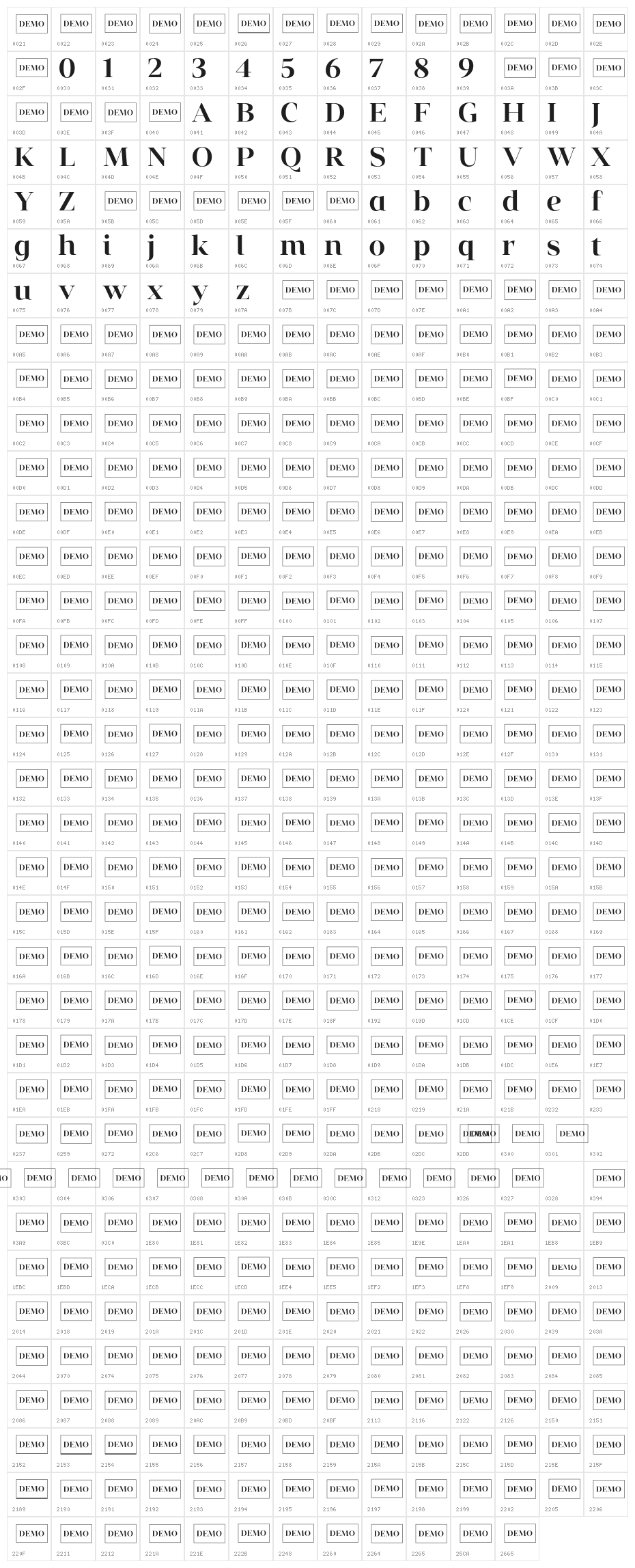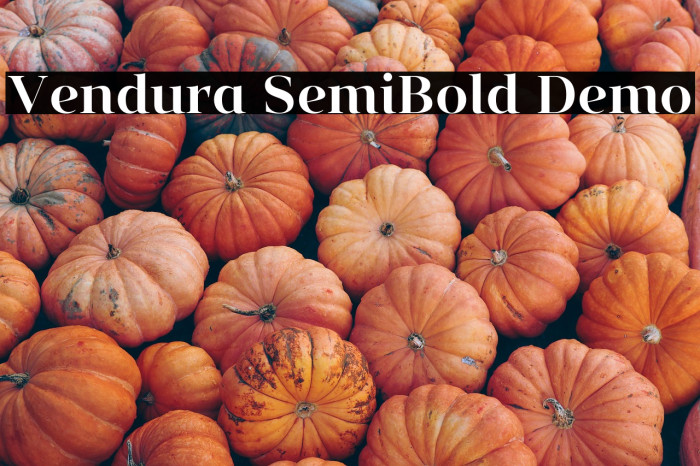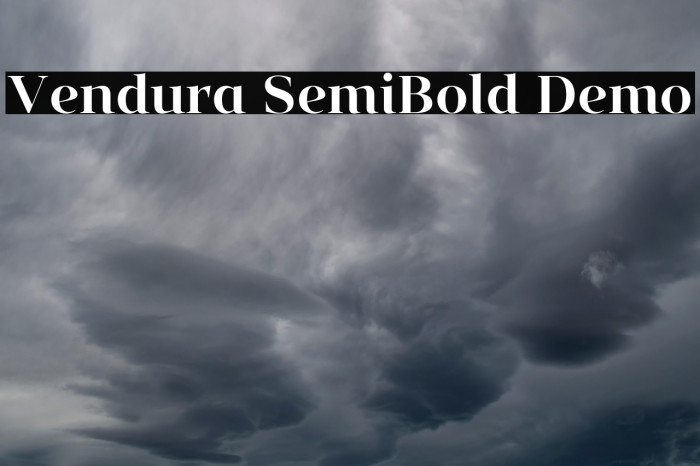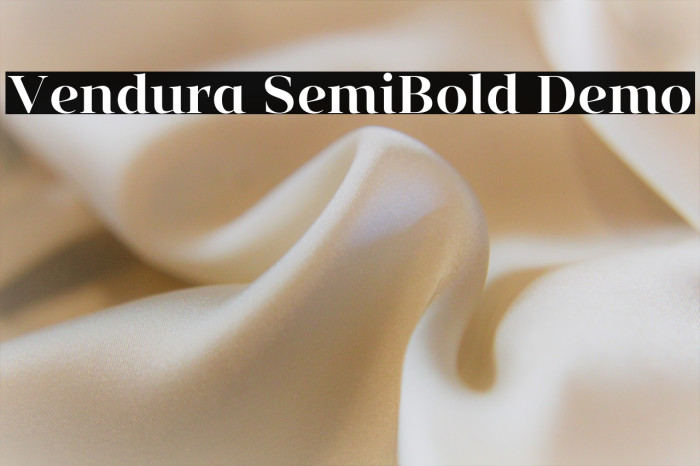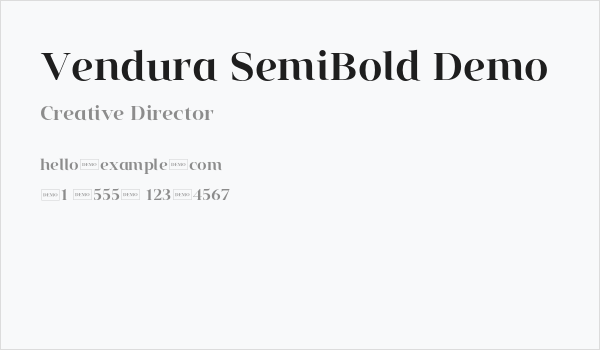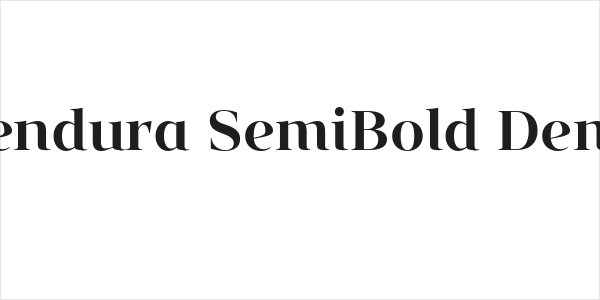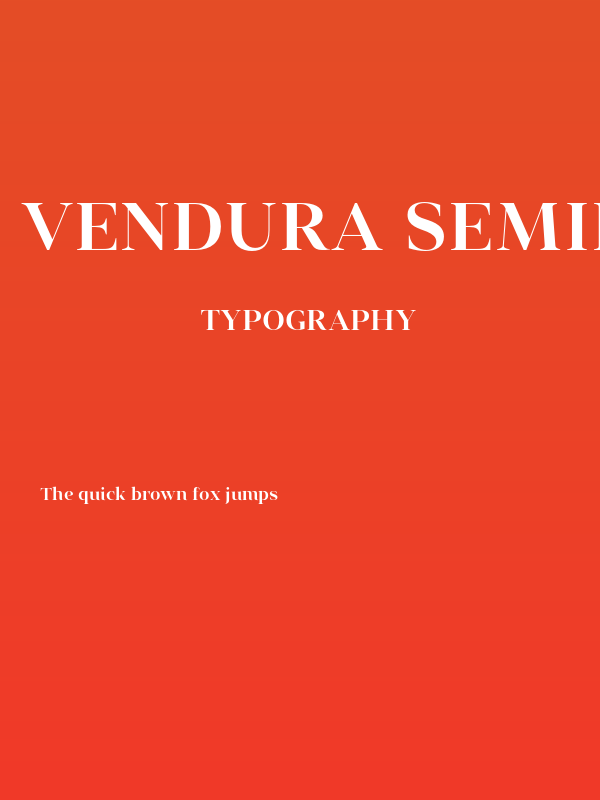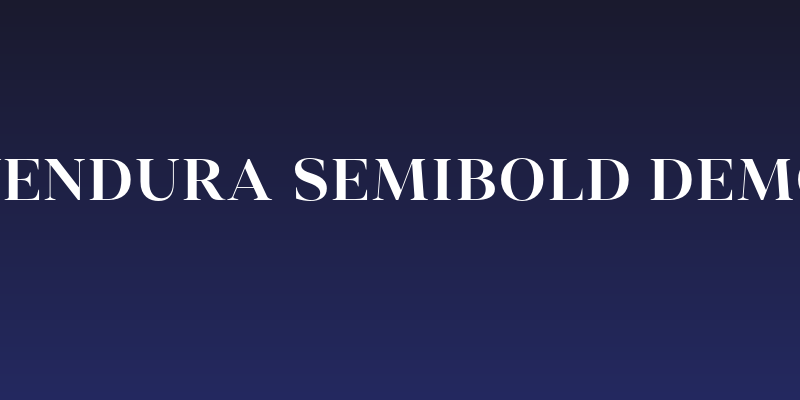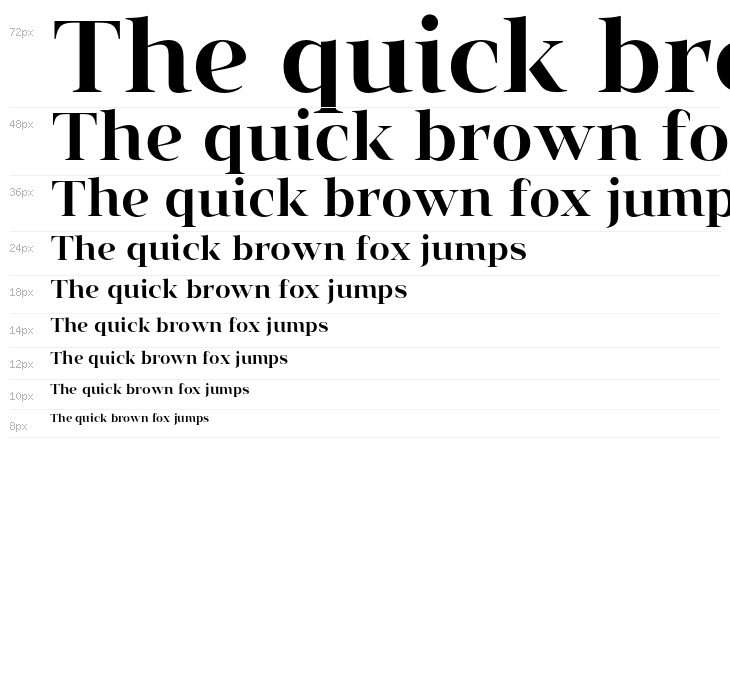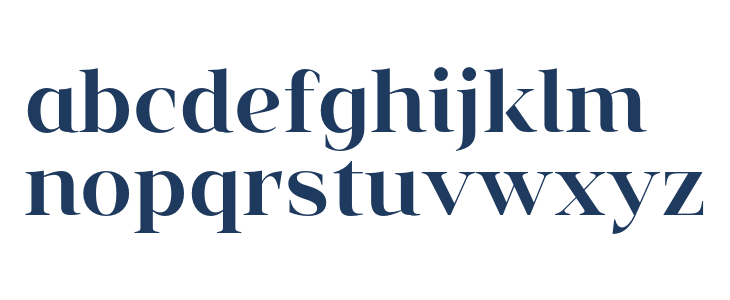
Vendura SemiBold Demo Font
Vendura SemiBold Demo Description
This font features a sophisticated and elegant serif design, characterized by its semi-bold weight that provides a strong yet refined appearance. The strokes are well-defined with moderate contrast, giving it a classic and timeless feel. The uppercase letters are tall and commanding, while the lowercase letters maintain a balanced and harmonious look. The numerals are clear and legible, making them suitable for various applications. The overall style is both modern and classic, making it versatile for different design needs.
| Proposed Projects | Ideal for editorial design, branding, book covers, and elegant invitations. |